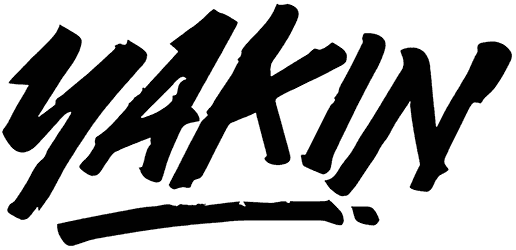
Gravel Gang Font
Inspire the audience with your all-time attractive, urban typography, which you can run professionally by using the Gravel Gang font! This distinctive gangster font with a messy, handmade face will add an approachable feel to your fantastic design.
Taking on the nature of the grunge lettering while supplying a nice possibility for designing street posters, plays, headings, and others. It’s precisely what you lack to be precise; it leaves no stone unturned in emphasizing your words.